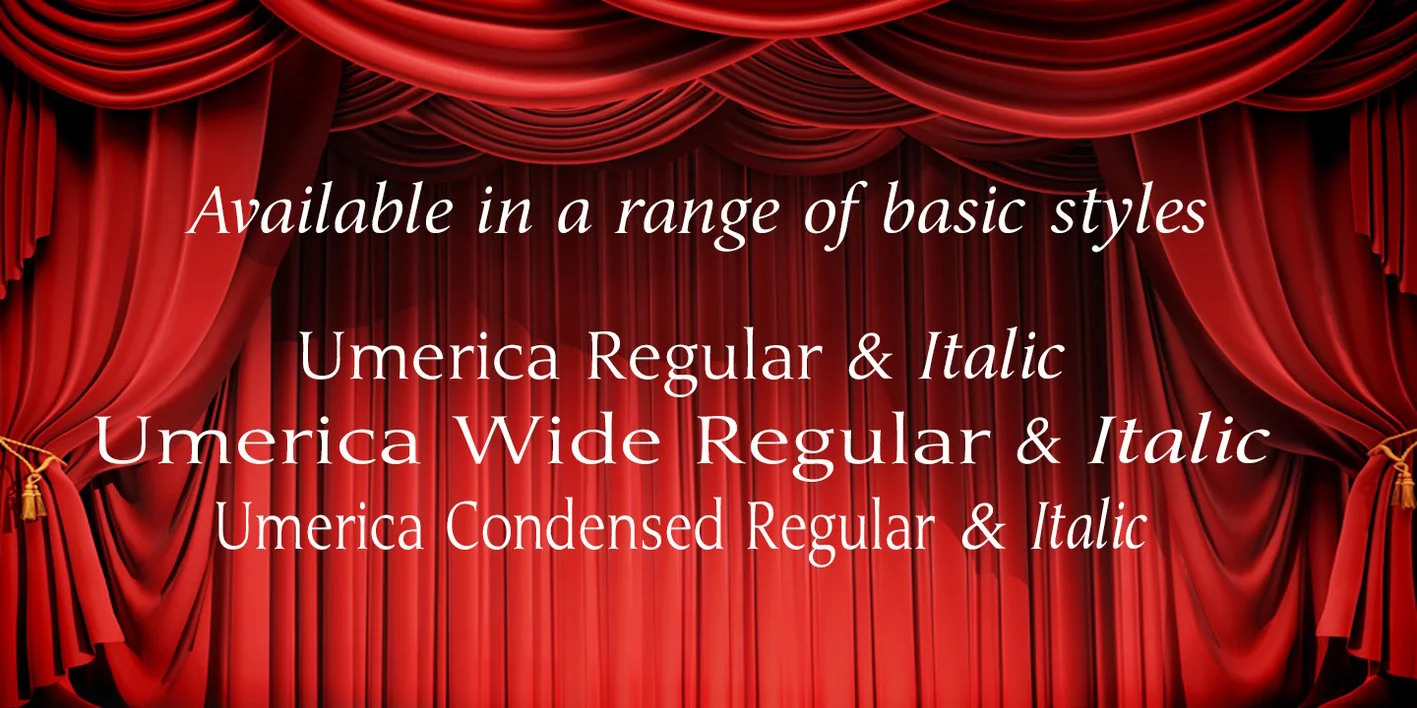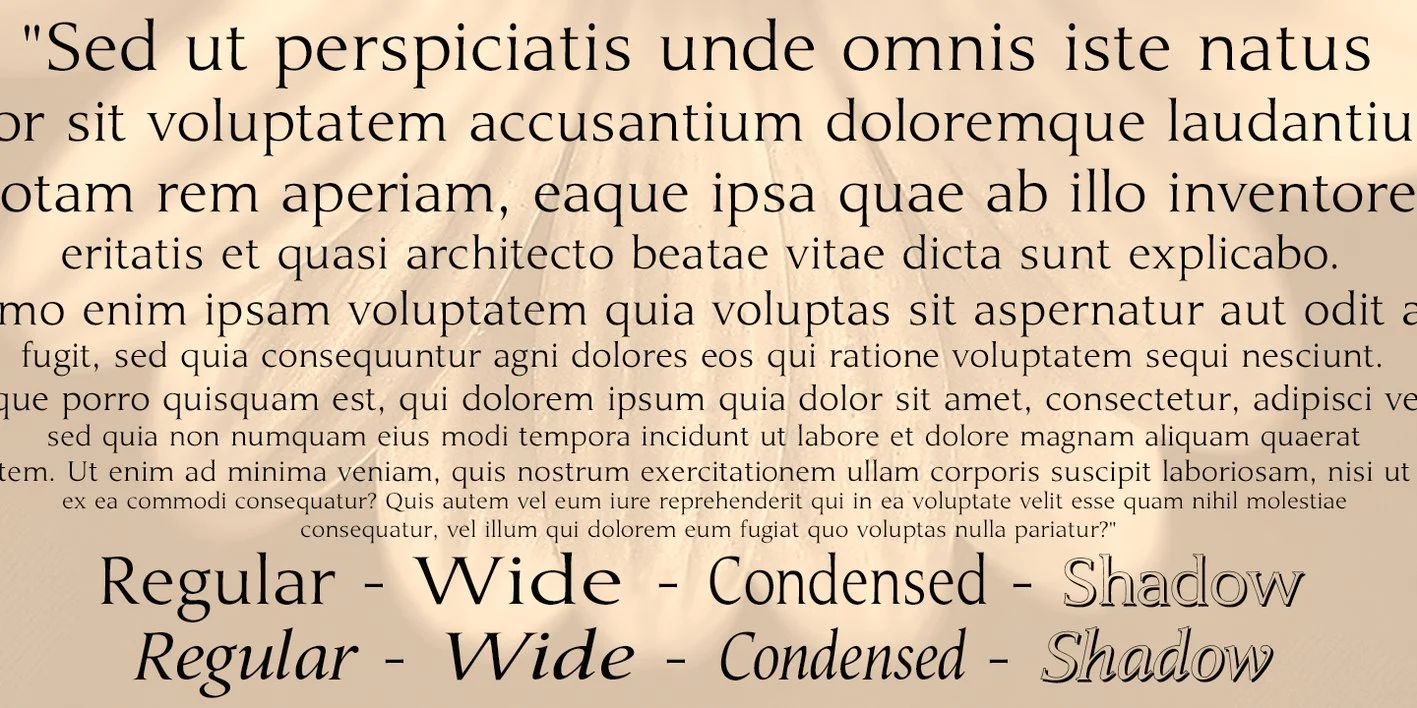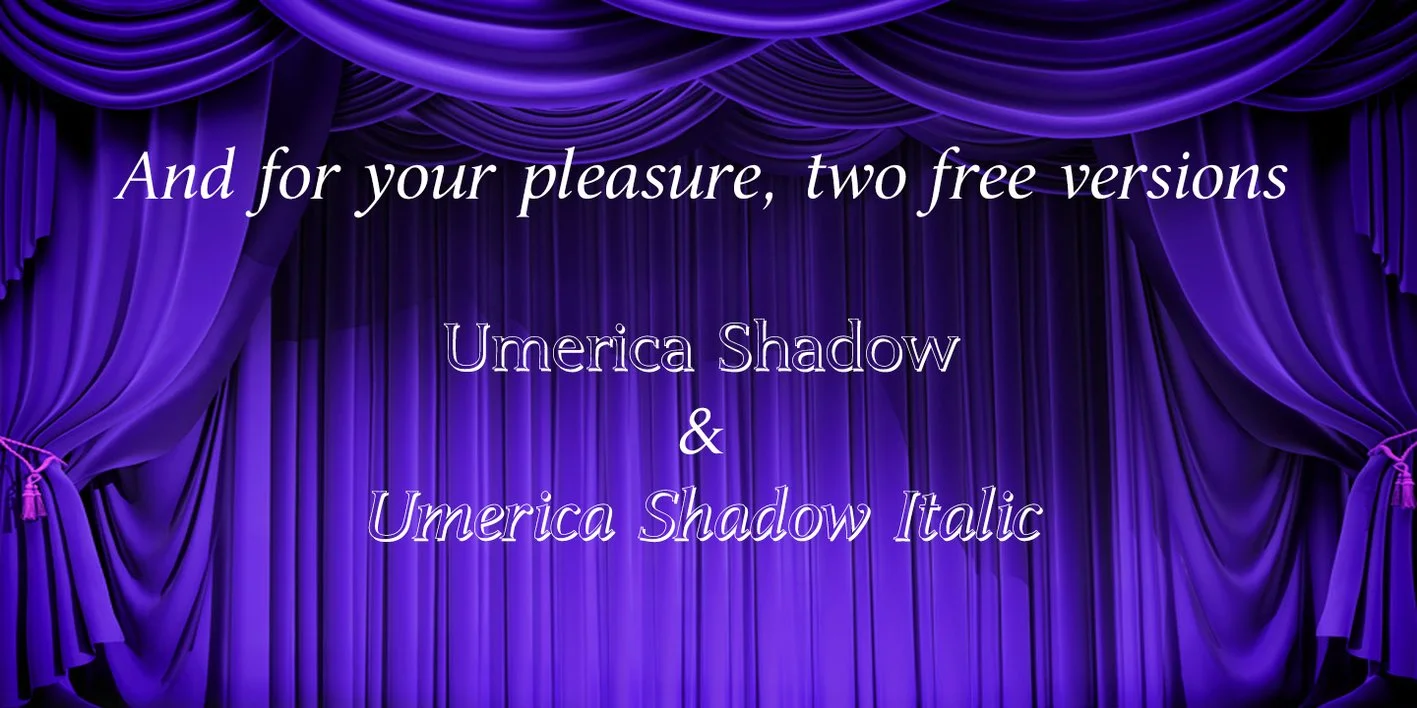
Umerica Font
There is a particular satisfaction in finding a typeface that delivers refined proportions and careful stroke modulation without compromise. Umerica consistently provides it. The typeface brings a versatile sensibility to a broad range of creative disciplines, with versatility across print and screen contexts that holds up whether the work is print-first or screen-first.
In practice, Umerica proves particularly effective for annual reports, logo design, packaging design, advertising campaigns, product labels. Designers reaching for it find that the type decisions feel resolved rather than laboured — a useful quality when client timelines are tight.
The range of applications extends to web design, signage systems, poster creation, social media graphics. That breadth is deliberate: the proportions and spacing were stress-tested across a wide range of mock briefs before the typeface was finalised.
Spacing and kerning pairs have been individually reviewed for the most common letter combinations in English and major European languages. The result is even type colour across continuous text, with no awkward gaps or collisions between adjacent characters.
Umerica sits comfortably alongside both classic and contemporary typefaces in multi-font hierarchies. It takes direction rather than competing for attention — a quality that experienced designers know is harder to find than it appears.
Brand strategists building visual languages find Umerica a reliable choice for projects that demand both personality and restraint. The design avoids the self-conscious quirkiness that dates quickly, settling instead for considered distinctiveness that holds up over time.